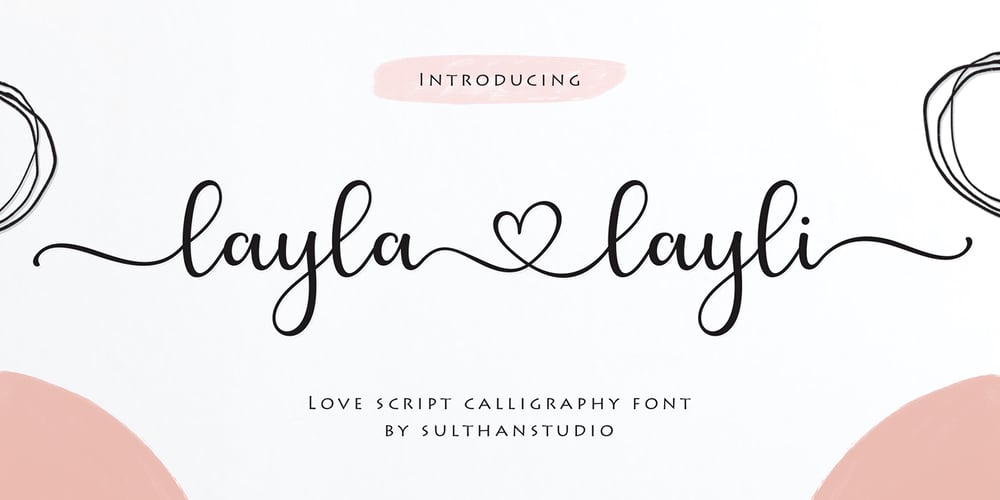
Layla Layli Font Family was designed by Nasrullah and published by Sulthan Studio. Layla Layli contains 1 styles and family package options. Layla Layli – new, fresh, funny, interesting, cute calligraphy fonts with a heart that can be connected and beautiful curves. It is suitable for greeting cards, branding materials, business cards, quotes, posters, and more!Layla Layli – includes many alternative characters. Coded with Unicode PUA, which allows full access to all additional characters without having special design software. Mac users can use Font Book. Windows users can use the Character Map to view and copy one of the additional characters to paste into your favorite text editor. For people who have opentype-capable software: Alternatives can be accessed by turning on the “Alternative Style” and “Ligature” buttons on the Photoshop Character panel, or through any software with the glyph panel, e.g. Adobe Illustrator, Photoshop CC, Inkscape.